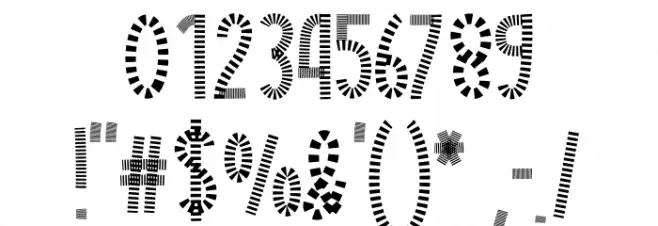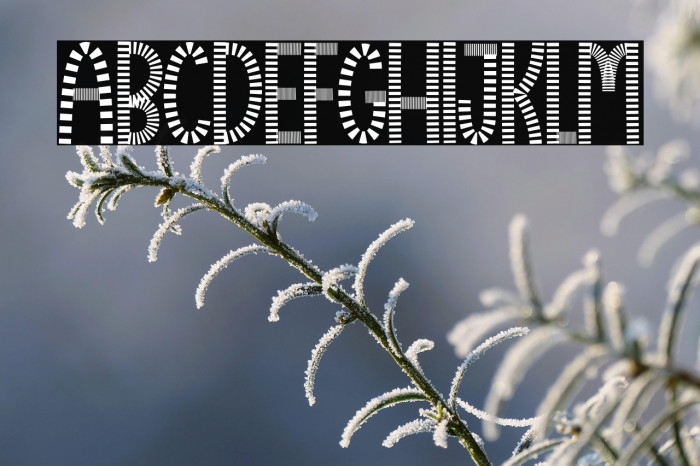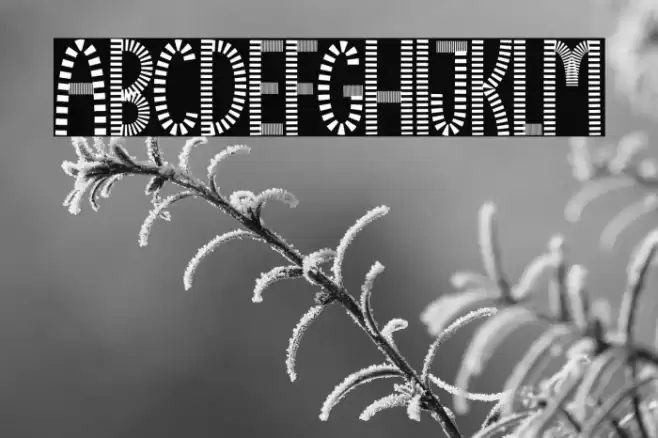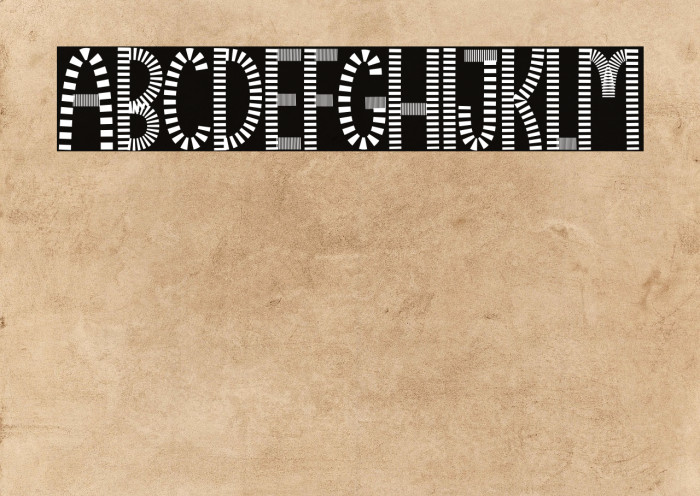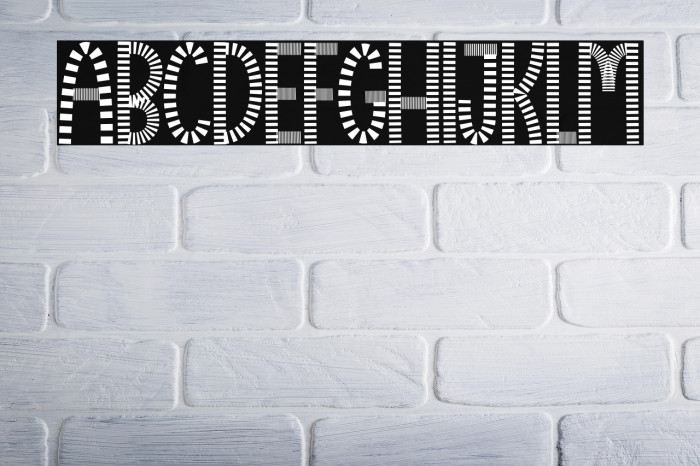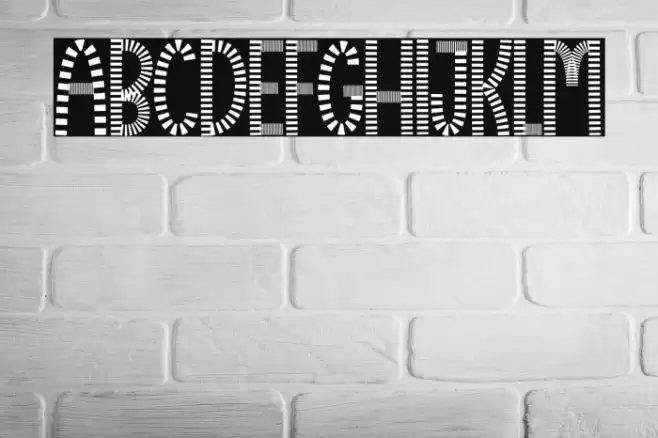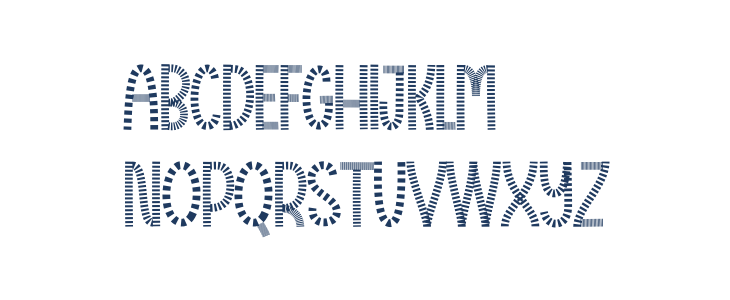
Christmas Santa Cart Font
Christmas Santa Cart Description
This playful and festive font features a unique design with each character composed of alternating stripes, creating a candy cane-like appearance. The bold and decorative style captures the essence of holiday cheer, making it perfect for seasonal projects. The uppercase and lowercase letters maintain a consistent pattern, while the numbers and special characters follow the same whimsical theme. This font's distinctive look is sure to stand out and bring a touch of joy to any design.
| Use Case | Headlines, Logos, Seasonal designs |
| Proposed Projects | Ideal for holiday cards, festive banners, Christmas-themed posters, and playful branding. |